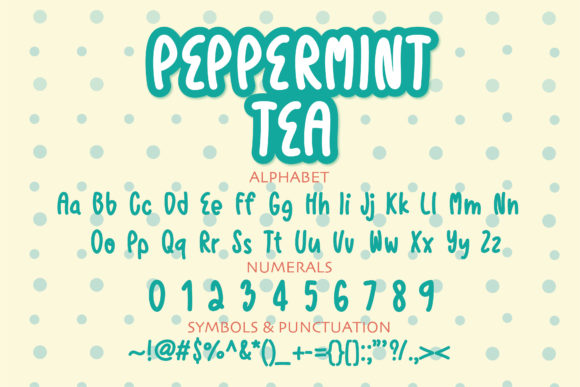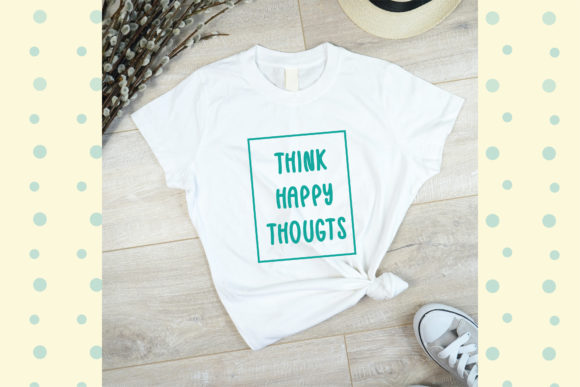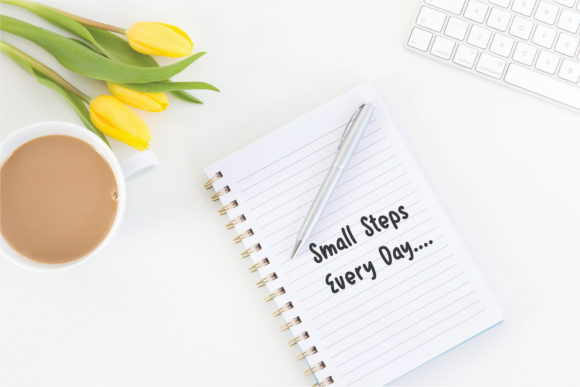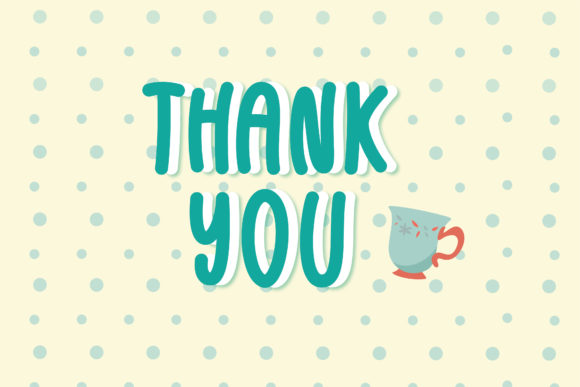
Introduction to Peppermint Tea Font
Have you ever sat down to start a creative project, only to feel stuck by the blank page staring back at you? We’ve all been there – the blank slate of a new design, a blank canvas waiting for inspiration to strike. That’s when the magic happens, and a spark of creativity ignites within us. For designers, finding the right font can be the key to unlocking that spark and bringing our ideas to life.
One such font that can add a touch of whimsy and charm to your design is the Peppermint Tea Font. This lovely handwritten font is perfect for adding a personal touch to your creative projects. With its high-quality design and transparent background, it’s a valuable resource for designers looking to elevate their work.
Key Features of Peppermint Tea Font
- High-quality design for creative projects, including illustrations and graphics
- Unique, hand-drawn style with a transparent background, ideal for layered designs
- Perfect for branding, logos, and packaging design, adding a touch of elegance and sophistication
Honest Review: Peppermint Tea Font
As a designer, I’m always on the lookout for high-quality design resources to elevate my creative projects. Recently, I came across the Peppermint Tea Font, and I’m excited to share my honest review.
- ✨ Unique and playful design style that’s perfect for food, beverage, or lifestyle brands.
- ✨ Includes a range of weights and styles to give you flexibility in your design projects.
- ⚠️ The font may not be suitable for formal or professional designs, due to its playful nature.
- ⚠️ The transparent background option can be a bit tricky to work with, especially for beginners.
Overall, I’m impressed with the Peppermint Tea Font. It’s a fantastic addition to any designer’s toolkit, and the free download option makes it an accessible resource for creative projects. While it may not be suitable for every design scenario, I think it’s a great option for designers looking to add a touch of whimsy to their work.
Tips for Getting the Most Out of Peppermint Tea Font
For the best results, use the Peppermint Tea Font on a transparent background to give your design a clean and modern look. Experiment with different font sizes and combinations to add visual interest to your project.
The Peppermint Tea Font is perfect for various design projects, such as:
- Blogging and social media graphics.
- Print materials like business cards and flyers.
- Online courses and educational materials.